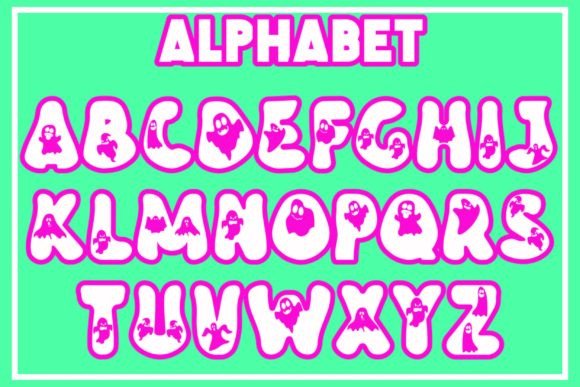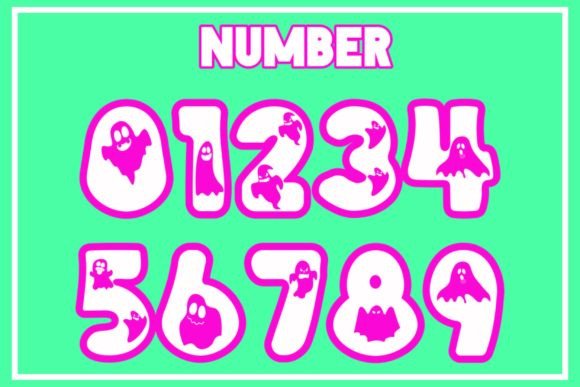
The Spooky Season’s Most Boo-tiful Font: A Deep Dive into Groovy Ghost
Ah, the thrill of the design process! You’re working on a project, and everything is coming together – the colors, the graphics, the overall vibe. But then, you hit a roadblock: finding the perfect font. I recall a particularly spooky Halloween project where I was struggling to find a font that captured the essence of the season. That’s when I stumbled upon Groovy Ghost, a fun and dramatic decorative display font that instantly elevated my design.
First Impressions: A Love Letter to Groovy Ghost
Groovy Ghost is a true showstopper, perfect for adding a touch of Halloween magic to your designs. Here’s what I love about this font:
- ✨ Unique and quirky design that screams Halloween fun
- ✅ Highly legible, even in larger sizes
- 💥 Excellent for titles, headings, and decorative text
- 🎃 Perfect for creating spooky, yet playful designs
The Not-So-Perfect Truth: A Few Quirks
No font is perfect, and Groovy Ghost is no exception. Here are a few things to keep in mind:
- 🤔 May not be suitable for body text or smaller sizes due to its decorative nature
- ⚠️ Limited use of OpenType features, but more on that later
The Story Behind Groovy Ghost
Groovy Ghost was inspired by the classic horror movies of the 1970s and 1980s. The font’s designer wanted to create a font that captured the essence of Halloween, with its spooky and playful vibe. The result is a font that’s both fun and dramatic, perfect for adding a touch of Halloween magic to your designs.
| Font Name | Groovy Ghost Font |
| Author | CHEETAH DOODLE |
| What is Groovy Ghost best used for? | Groovy Ghost is best used for titles, headings, and decorative text, especially for Halloween-themed designs. |
| Is Groovy Ghost suitable for body text? | No, Groovy Ghost is not suitable for body text due to its decorative nature. It’s best used for larger sizes and attention-grabbing text. |